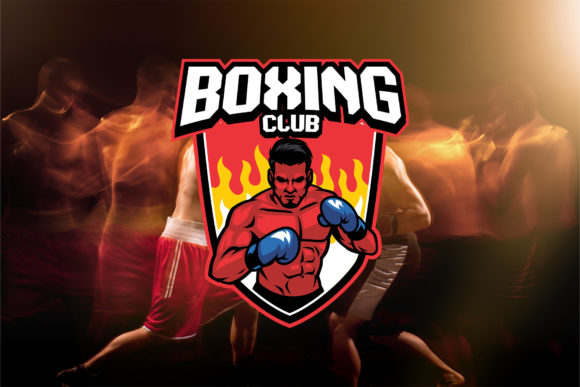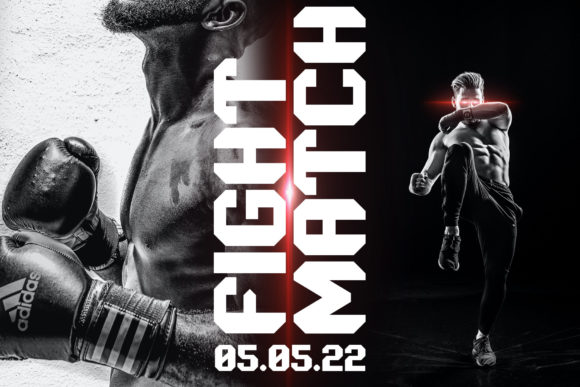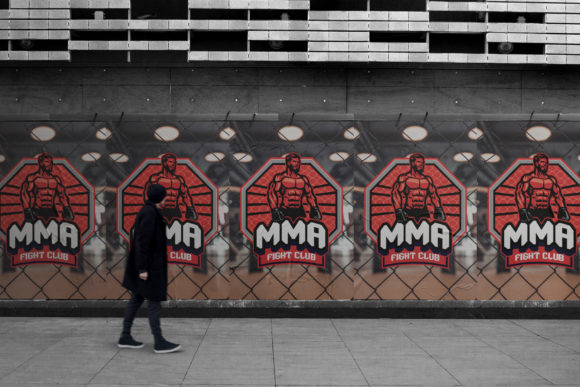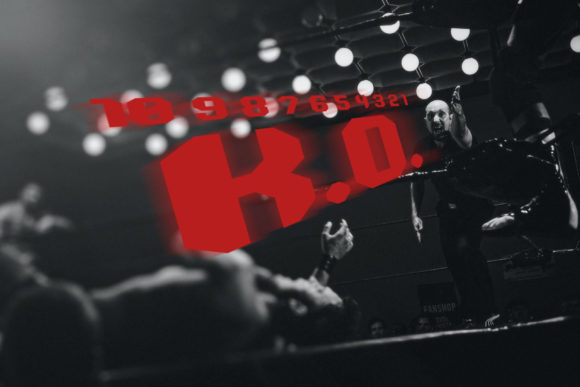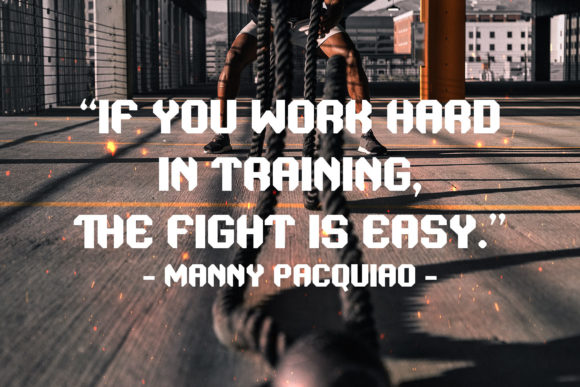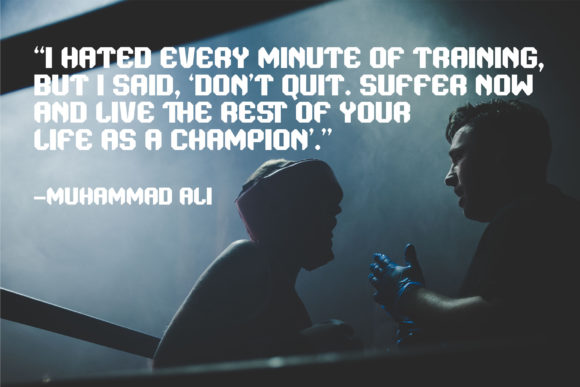
Unleashing the Power of Bold Typography: Discover Boxset Font
Have you ever sat down to work on a creative project, only to be met with a blank page and a lack of inspiration? For many designers, this is a familiar feeling – but what if you could unlock a world of creativity with just a few clicks? That’s exactly what the Boxset Font can do.
This stunning all-caps display font is the perfect addition to any designer’s toolkit. Whether you’re crafting a custom logo, designing a digital presentation, or creating a set of greeting cards, Boxset Font adds a touch of trendiness and sophistication to any project. Its bold, eye-catching style makes it a valuable asset for designers looking to elevate their work and stand out from the crowd.
With its versatility and modern aesthetic, it’s no wonder the Boxset Font is quickly becoming a favorite among designers. Whether you’re a seasoned pro or just starting out, this font is sure to help you create projects that truly pop.
Key Features of Boxset Font
- Font Family: Boxset Font is a modern sans-serif font family that includes multiple weights and styles.
- Character Set: Boxset Font includes a comprehensive character set that supports over 200 languages, making it an ideal choice for global branding and design projects.
- Unique Characteristics: Boxset Font features a unique blend of modern and minimalist design elements, with clean lines, geometric shapes, and a subtle texture that adds depth and visual interest.
Boxset Font Review
Overall, I’m quite pleased with Boxset Font, but like any font, it has its strengths and weaknesses. Here’s my honest review.
- Unique design: Boxset Font has a distinctive, modern aesthetic that sets it apart from more traditional fonts.
- Legibility: The font is easy to read, even at smaller sizes, making it suitable for body text and headings.
- Flexibility: Boxset Font comes in multiple weights and styles, allowing for a wide range of creative possibilities.
- Lack of expressiveness: The font’s design, while modern, can sometimes feel cold and unemotional.
- Not ideal for serif-heavy designs: Boxset Font is a sans-serif font, which may not be the best choice for designs that require a more traditional serif feel.
- May not be suitable for very small sizes: While the font is legible at smaller sizes, it can start to break down and become difficult to read at extreme small sizes.
Overall, I think Boxset Font is a solid choice for designers looking for a modern, legible sans-serif font. While it may not be perfect for every project, it’s a versatile font that can add a unique touch to a wide range of designs.
Boxset Font is commonly used for:
- Modern logo designs
- Social media graphics
- Business card designs